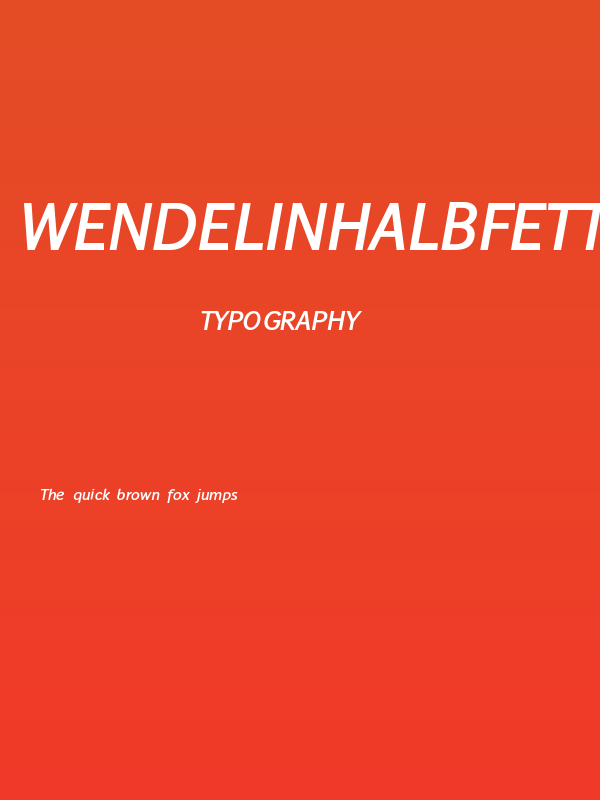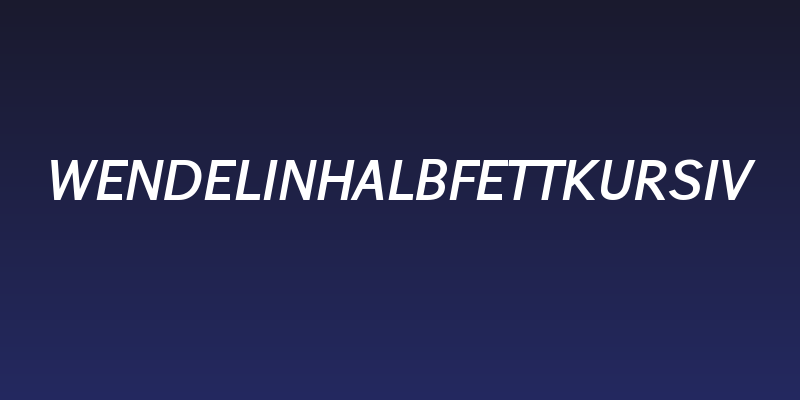
WendelinHalbfettKursiv Font
WendelinHalbfettKursiv Description
This font exhibits a clean and modern sans-serif style with a slight italic slant, giving it a dynamic and forward-moving appearance. The characters are bold, providing a strong presence on the page. The strokes are consistent in weight, offering a uniform look across all characters. The spacing between characters is normal, ensuring readability while maintaining a compact appearance. The font's design is versatile, making it suitable for various applications where clarity and impact are essential.
| Proposed Projects | Ideal for branding, advertising, headlines, and digital content where a modern and impactful look is desired. |